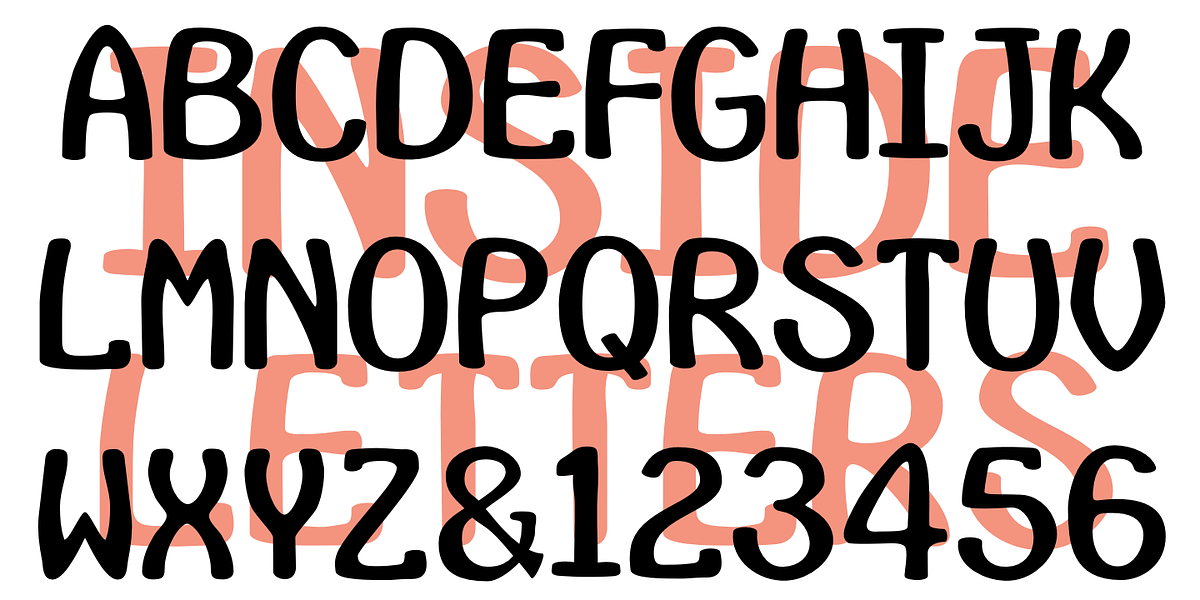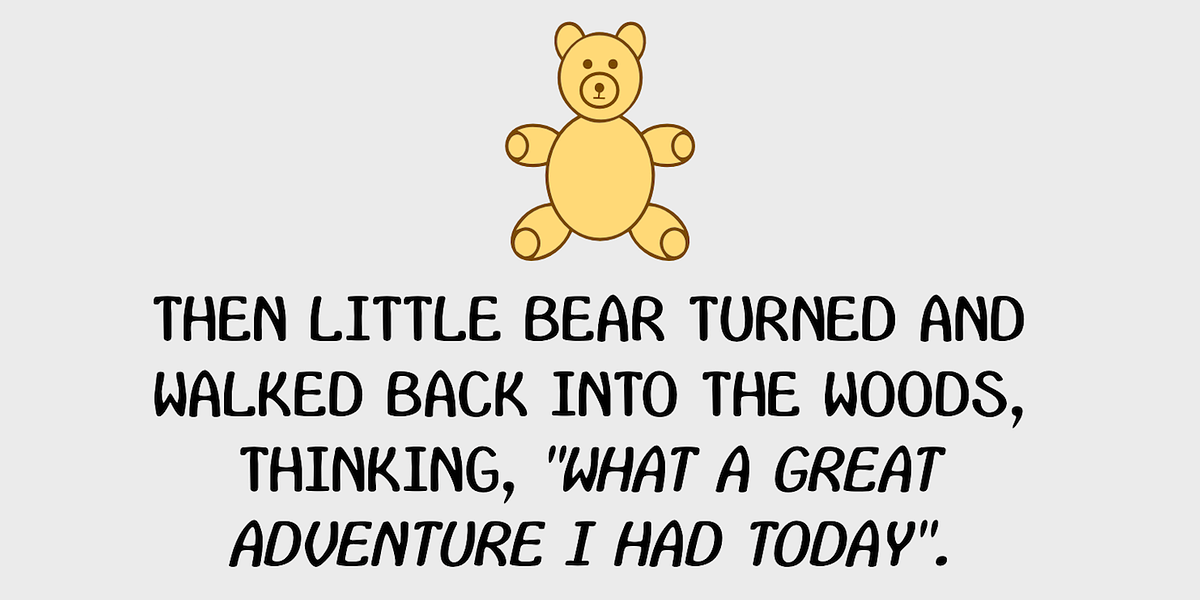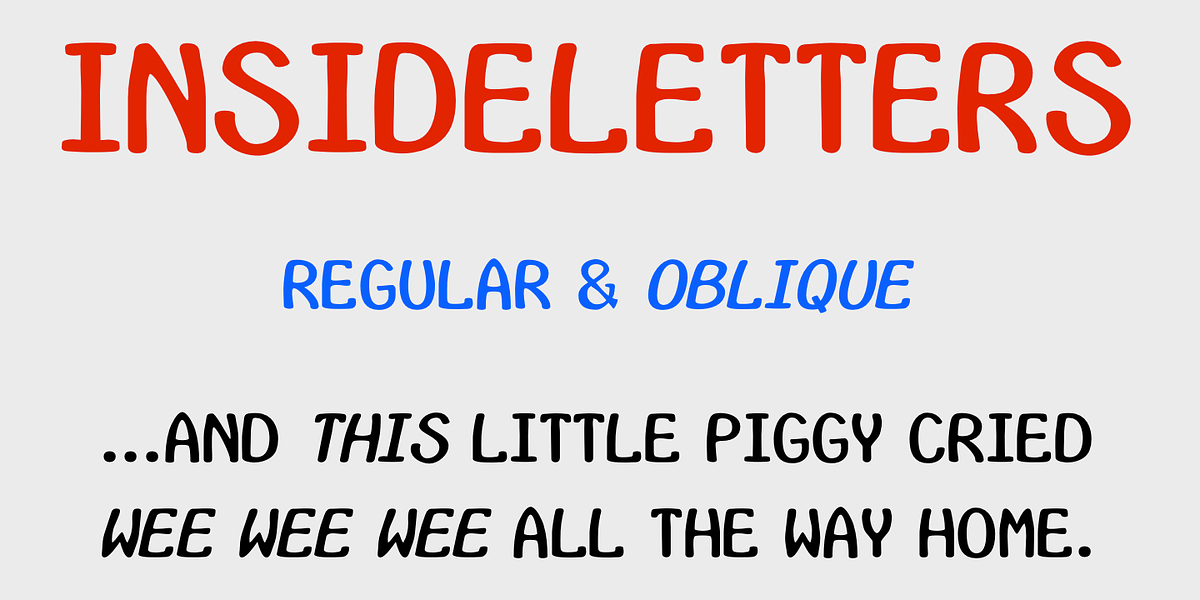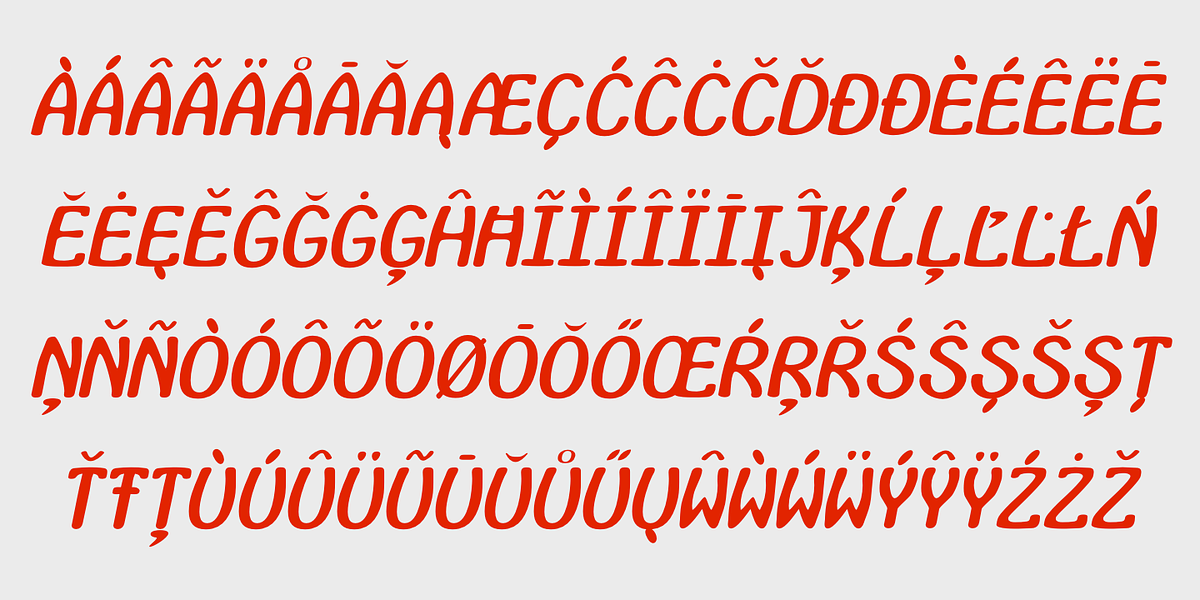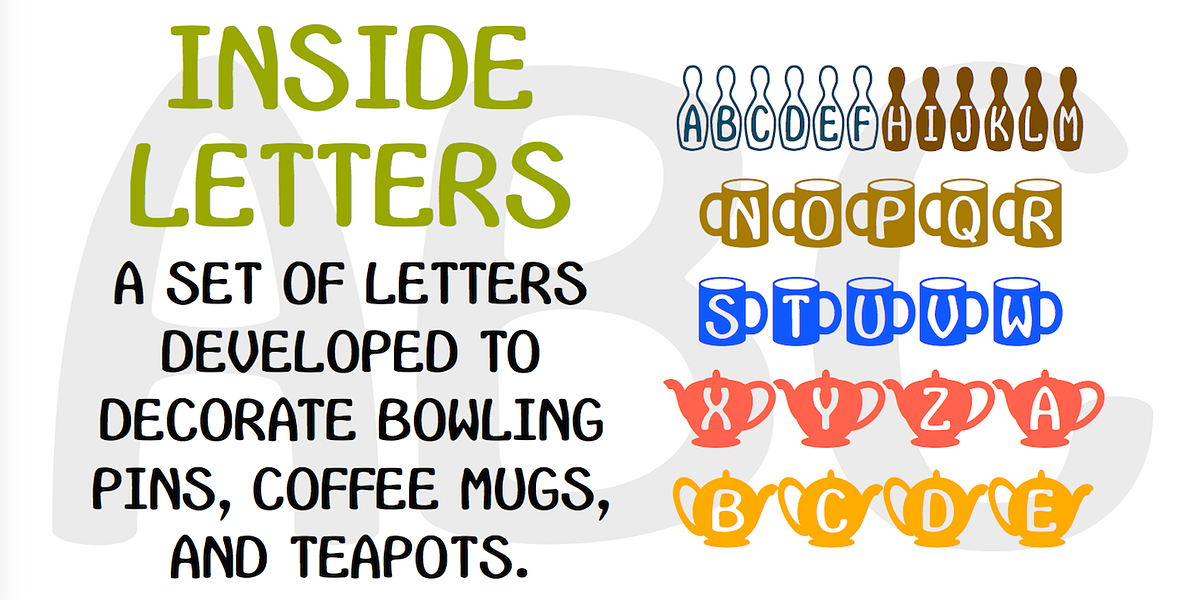
InsideLetters
This casual display script font features a handwritten style. It is designed for uppercase letters only and evokes a playful and soft aesthetic reminiscent of 1960s design.